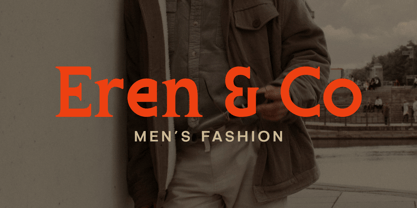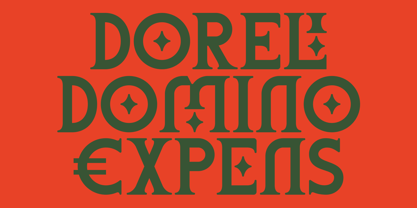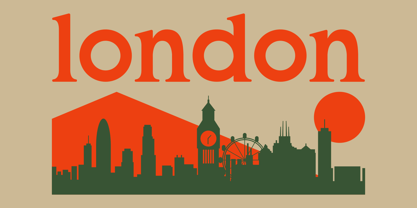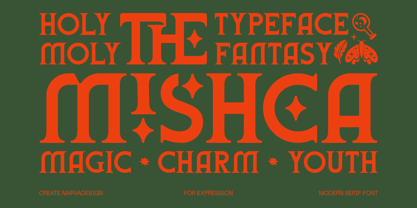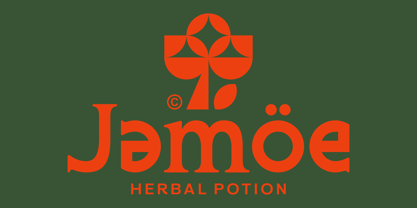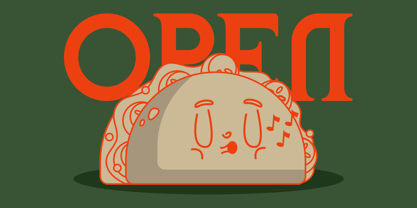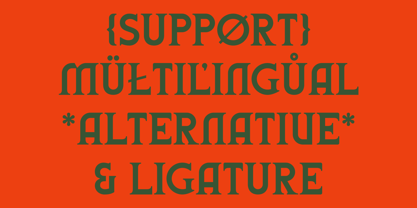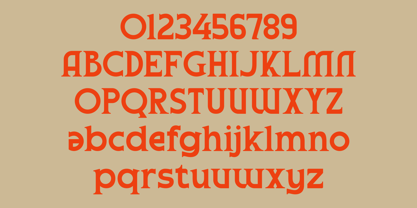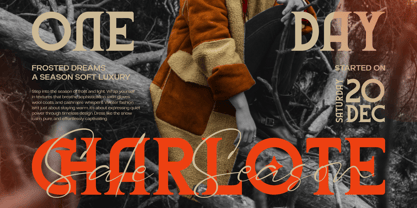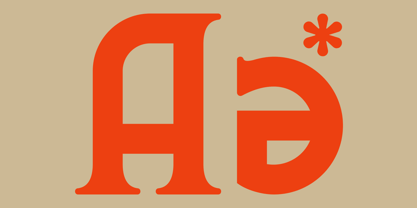
Mishca
by Marvadesign
The Mishca Font Family was designed by Febrie Setiawan and published by Marvadesign. Mishca contains 1 styles. More about this family
MISHCA is a modern serif typeface that radiates fantasy and youthful charm. Its distinctive characters combine bold geometric structure with whimsical decorative elements, creating a unique visual rhythm that feels both magical and expressive. The font’s sharp serifs and curvy letterforms evoke a sense of vintage elegance infused with a contemporary twist. MISHCA stands out through its diamond-shaped inner details and creative alternates that add a touch of playfulness and sophistication. Perfect for display use, it captures attention in posters, branding, or editorial design, delivering a bold statement of creativity and character.
Designers: Febrie Setiawan
Foundry: Marvadesign